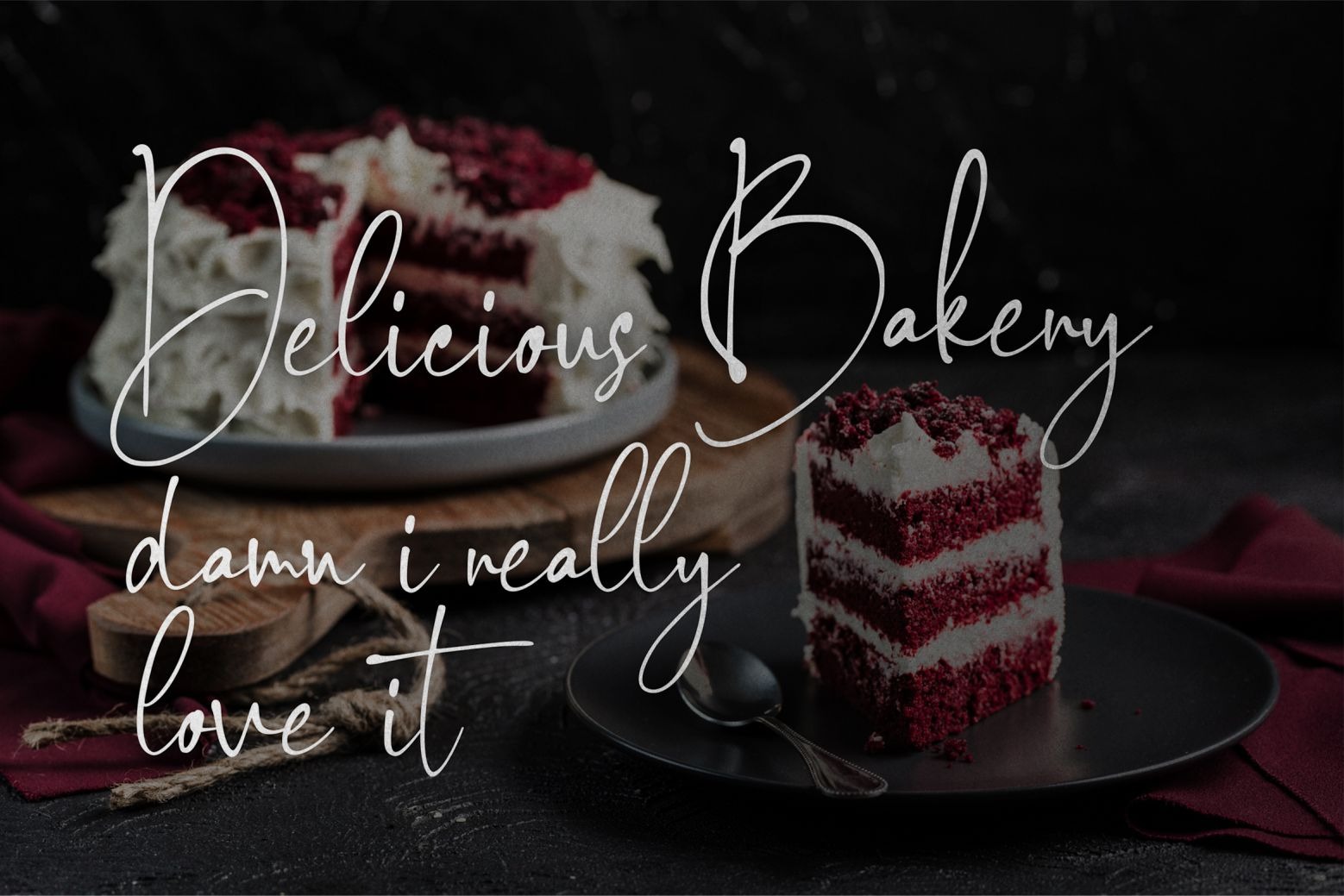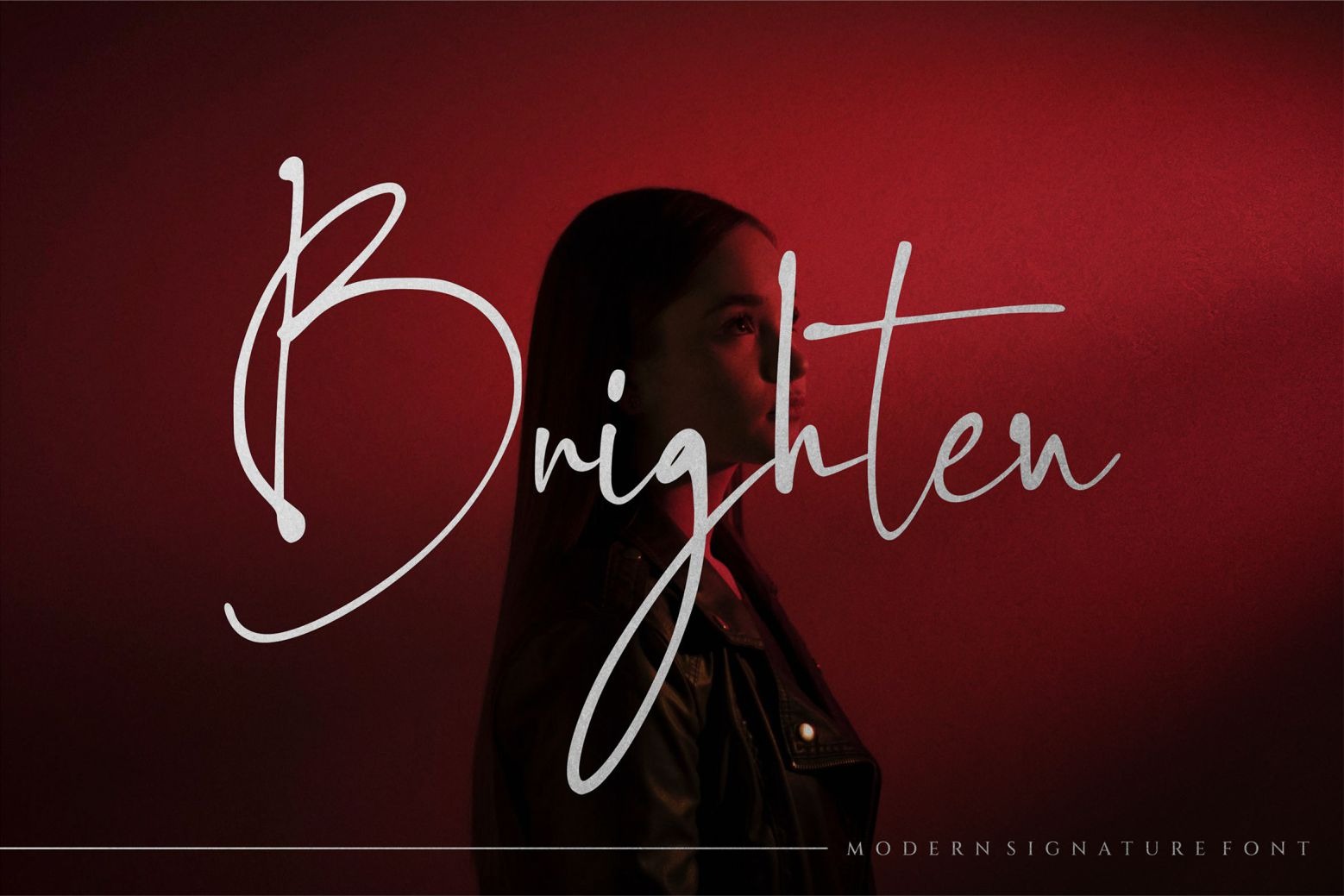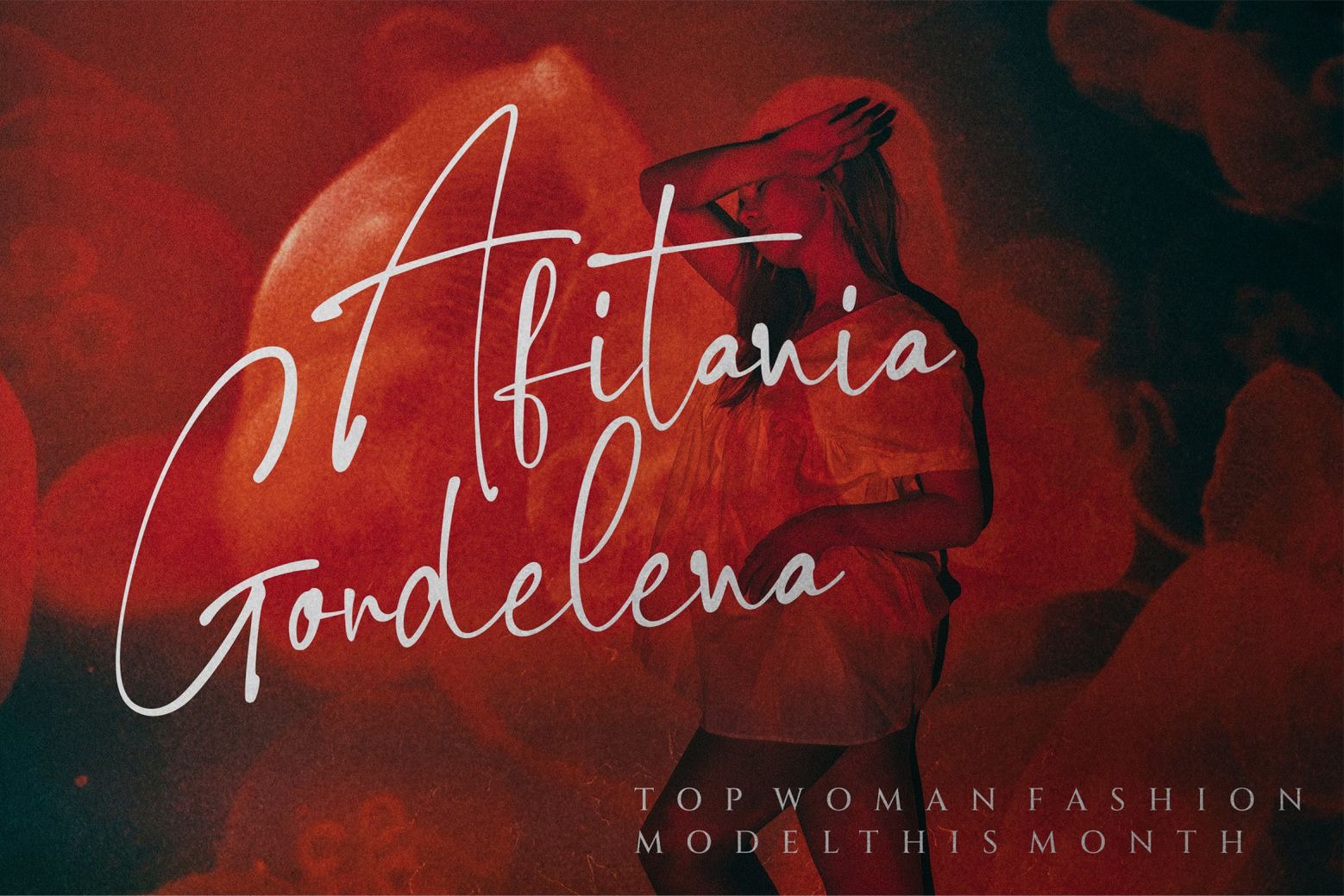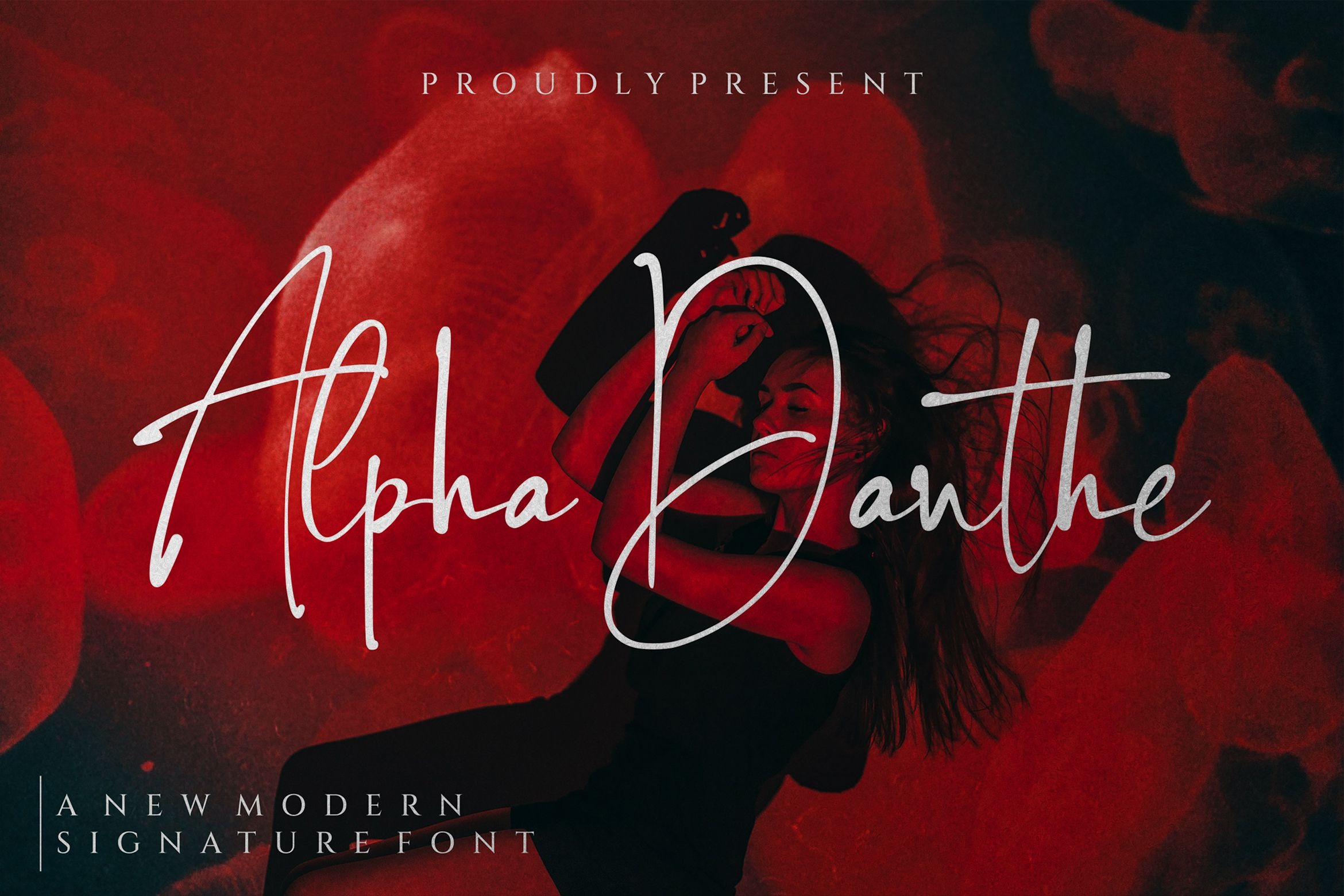
Alpha Danthe Handwritten Font is a beautiful cursive script typeface crafted & designed by Mans Greback. It looks stunning on wedding invitations, thank you cards, quotes, greeting cards, logos, business cards and every other design which needs a handwritten touch. Fall in love with its incredibly distinct and timeless style and use it to create spectacular designs!